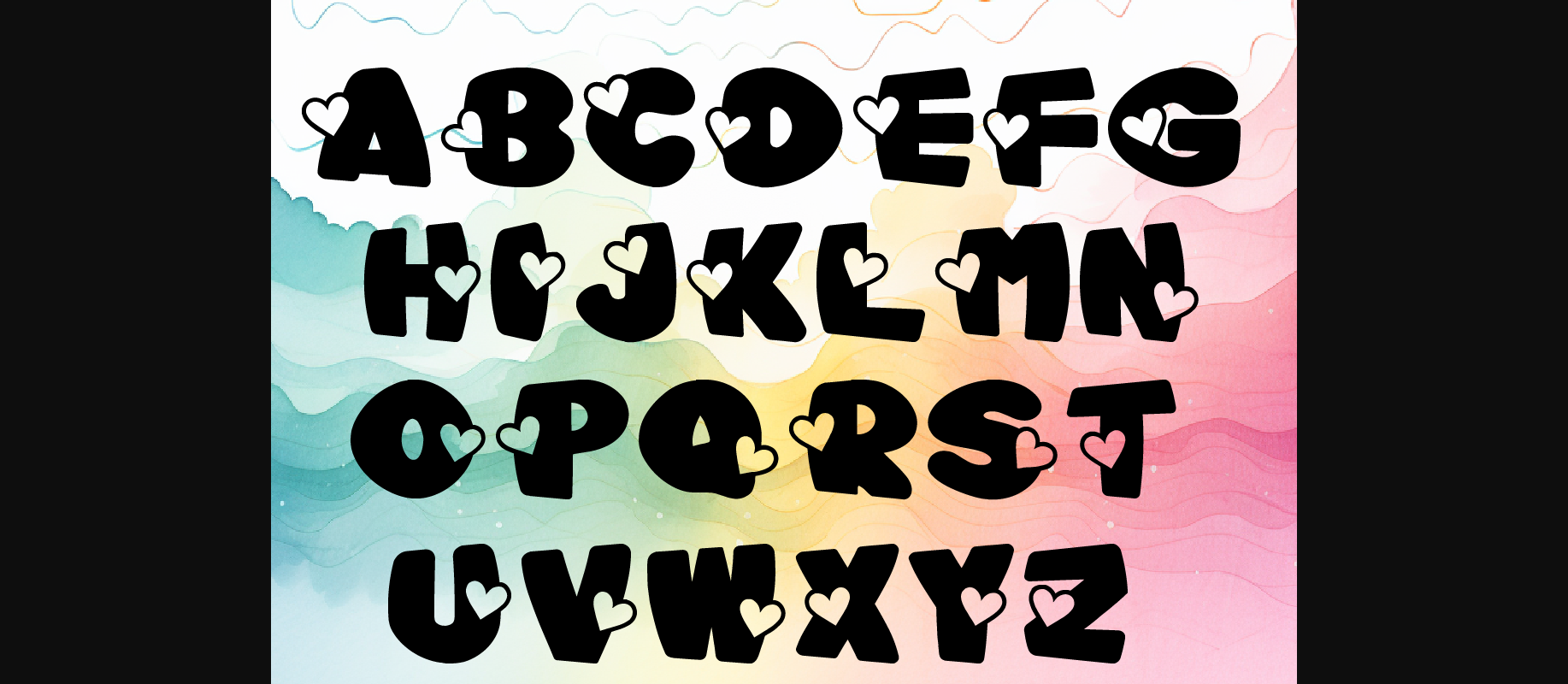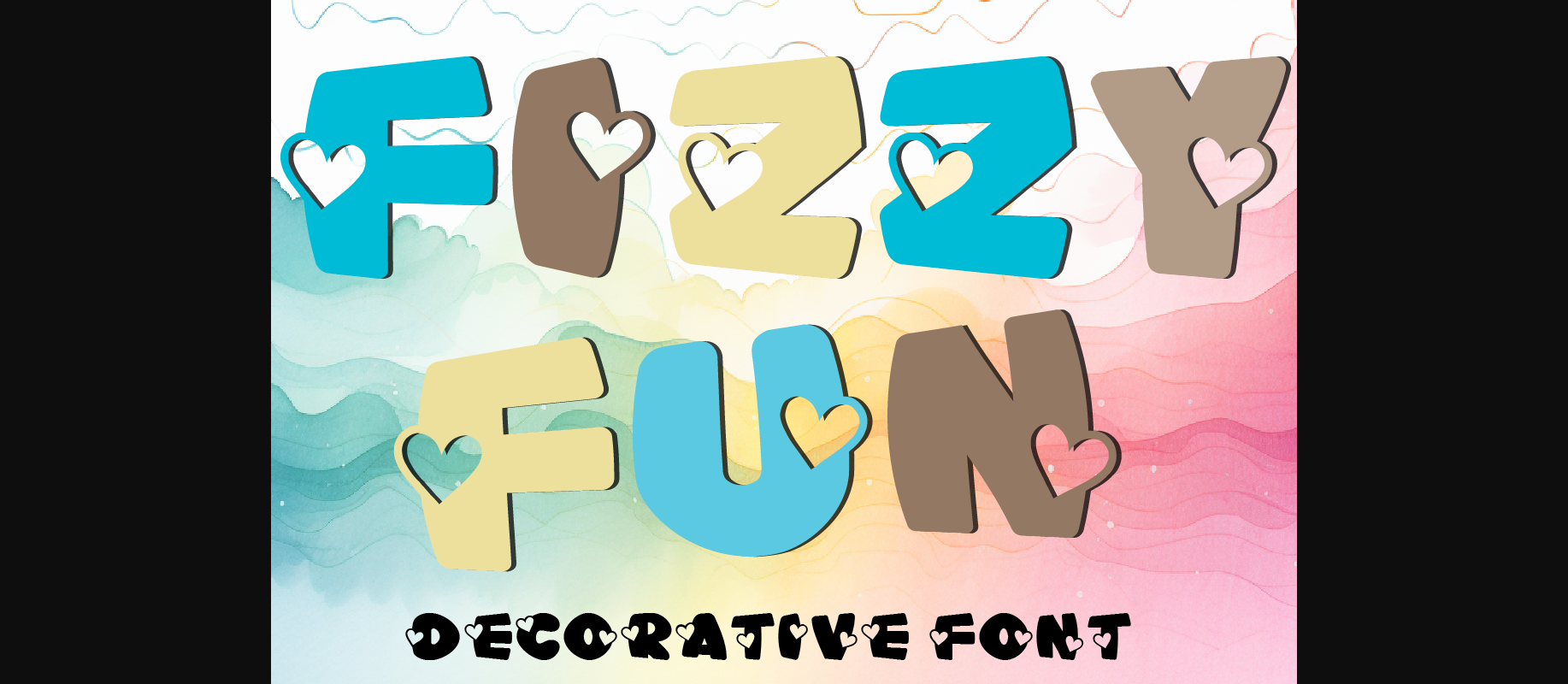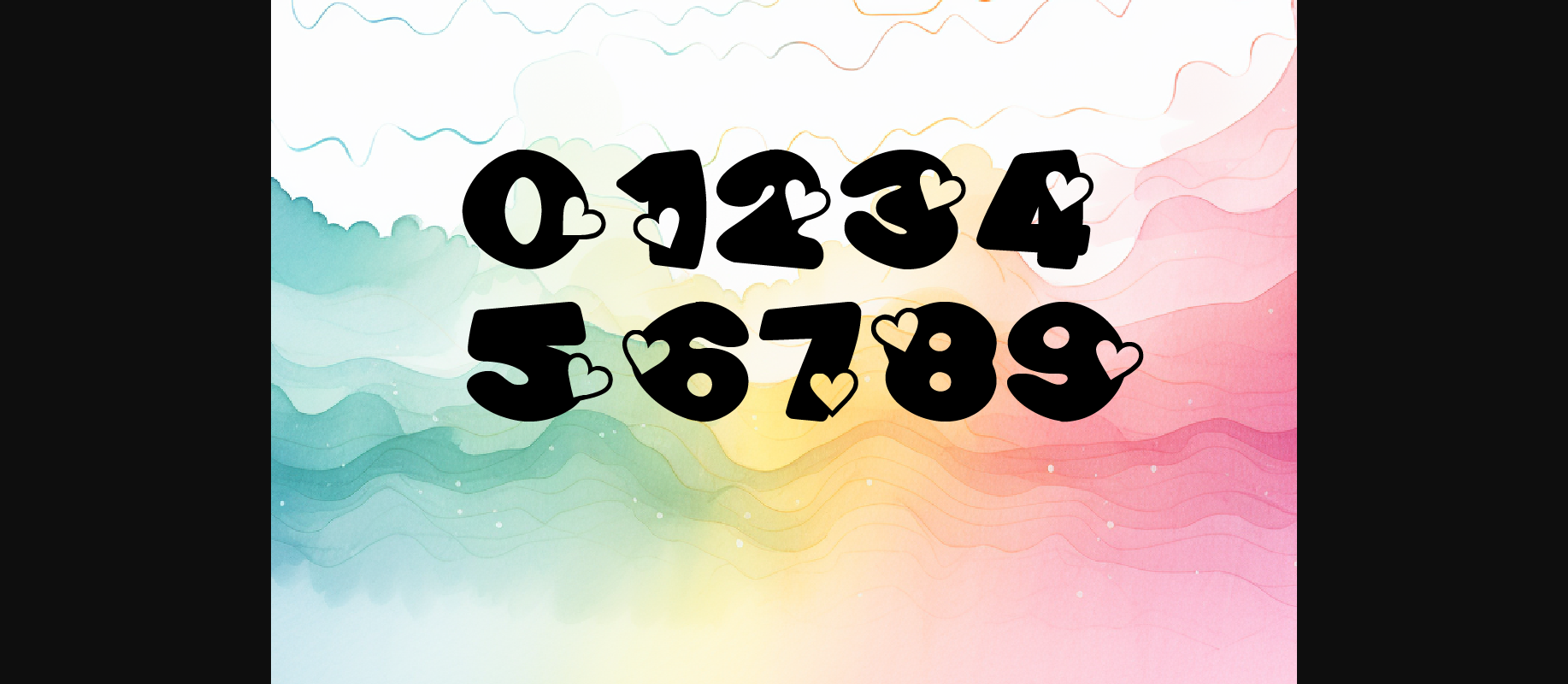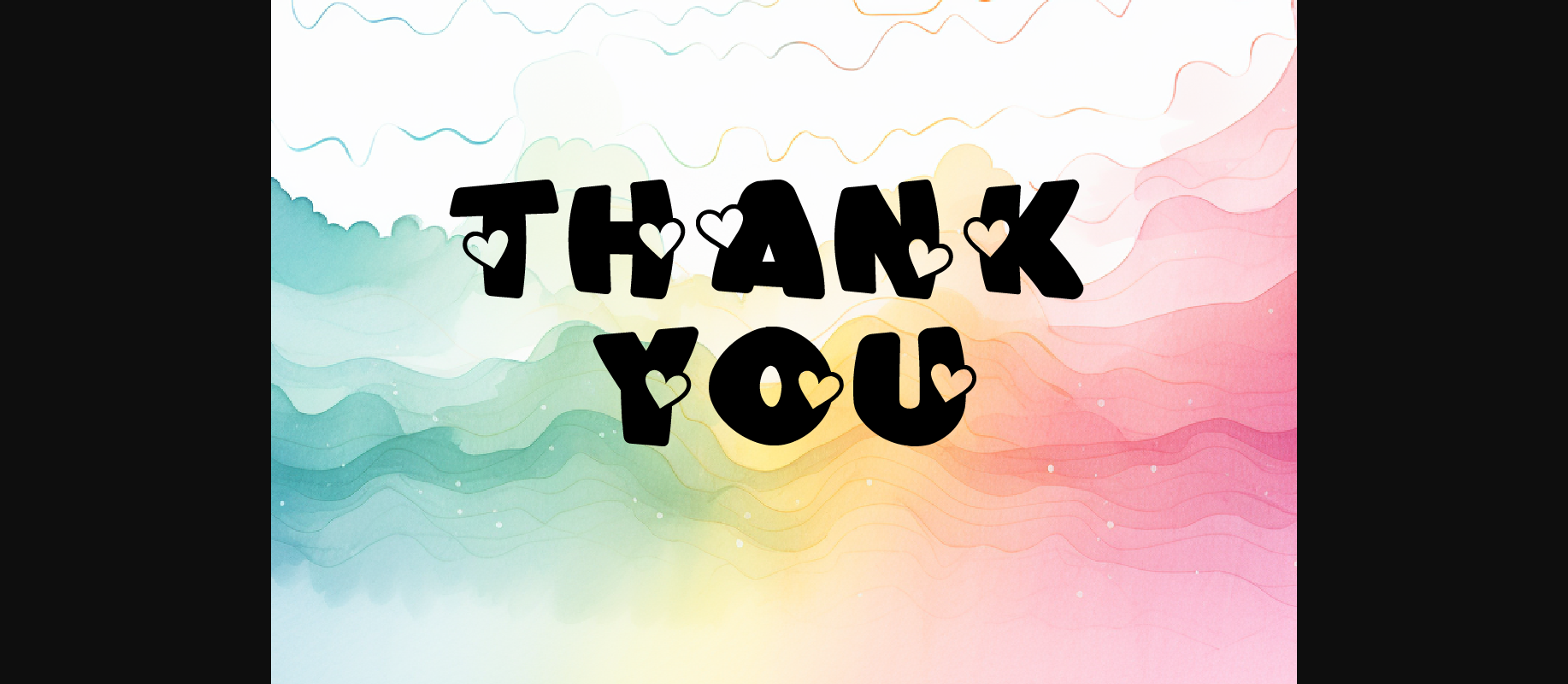
About Fizzy Fun Font
Introducing “Fizzy Fun Decorative Fonts”! Each letter in this delightful font set is adorned with a charming heart shape, conveying love and warmth in every stroke. With a collection of 26 capital letters and 10 numbers from 0 to 9, these fonts offer versatility for various applications.